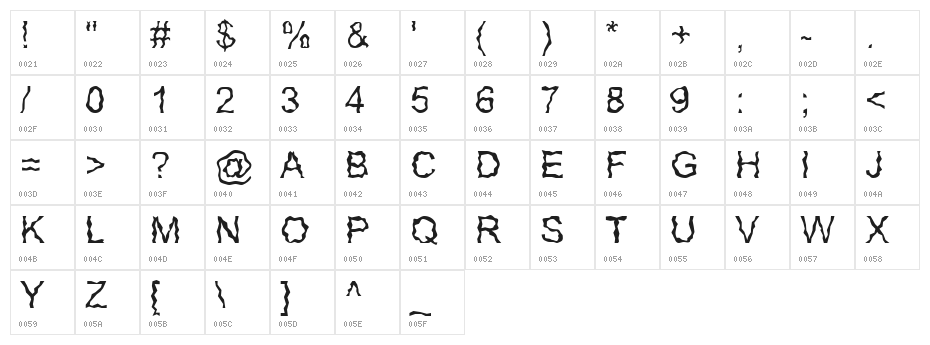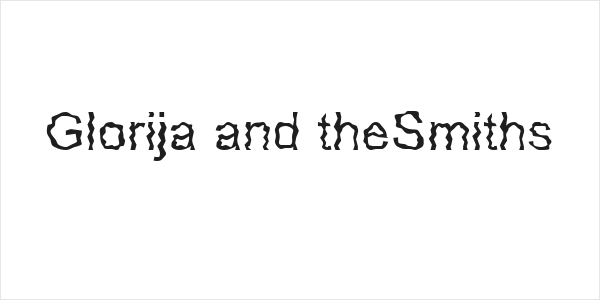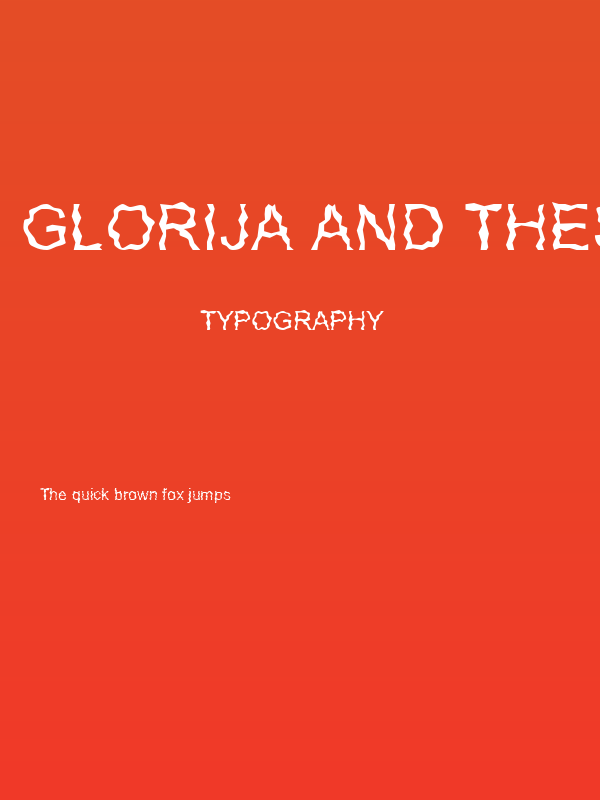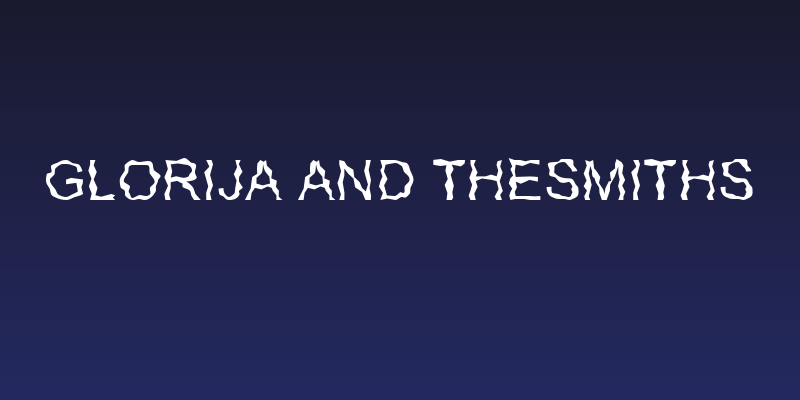
Glorija and theSmiths Font
Glorija and theSmiths Description
This font features a rugged, jagged appearance that gives it a unique and edgy style. The characters are irregularly shaped, with uneven edges that create a sense of movement and energy. This design choice makes it stand out, offering a bold and unconventional look. The uppercase and lowercase letters maintain a consistent style, with the numbers and special characters following suit. The font's distinctive appearance makes it suitable for projects that aim to convey a sense of rebellion or creativity.
Overall StyleEdgy, Creative
Proposed ProjectsIdeal for album covers, posters, and branding projects that require a bold, unconventional look.